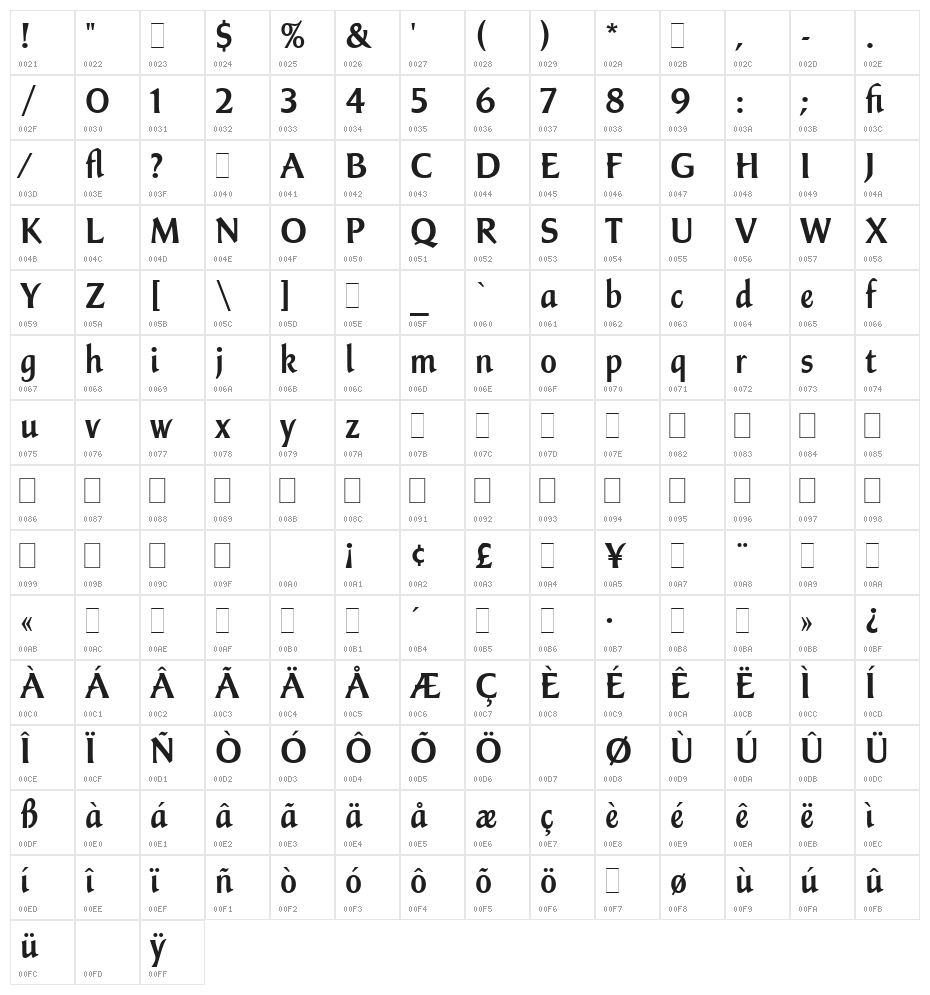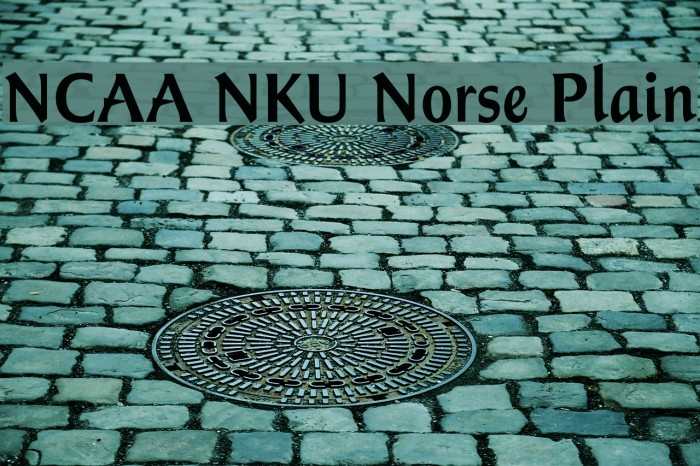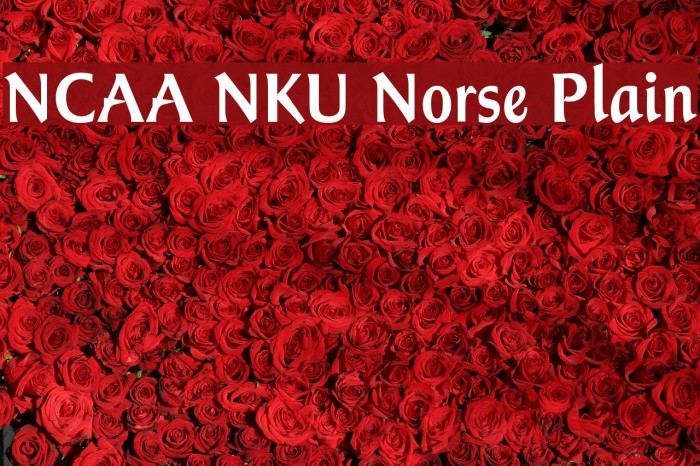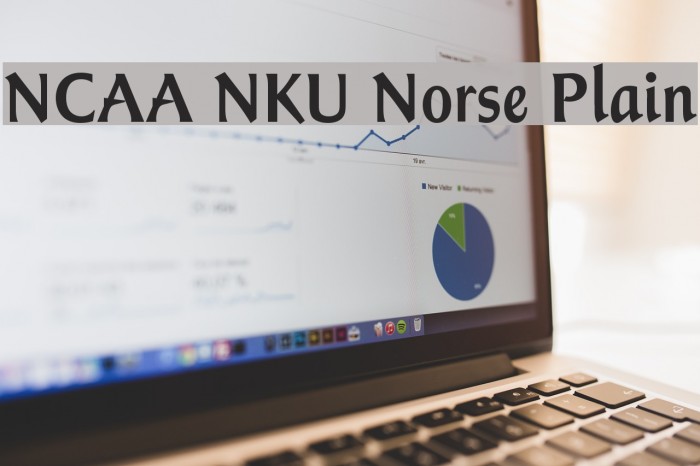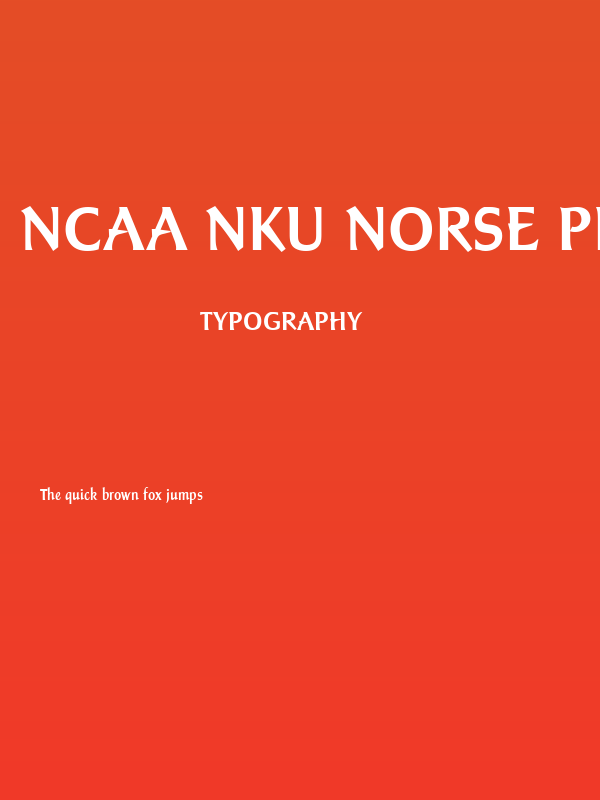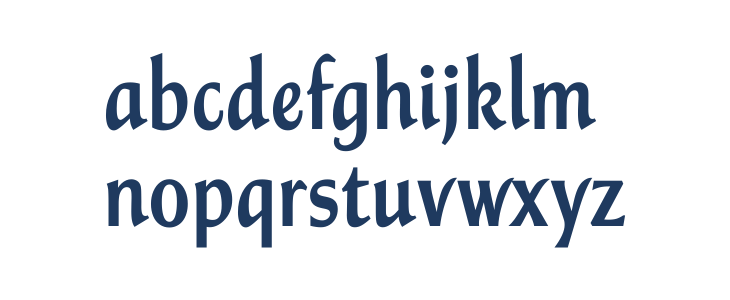
NCAA NKU Norse Plain Font
NCAA NKU Norse Plain Description
This font features a bold and distinctive serif style with sharp, angular serifs that give it a strong and authoritative presence. The uppercase letters are particularly striking, with a slightly condensed form that enhances their impact. The lowercase letters maintain a consistent style, offering a harmonious balance between readability and style. The numerals are clear and robust, making them suitable for various applications. Special characters are well-defined, adding to the font's versatility. Overall, this font exudes a classic yet modern feel, making it suitable for a wide range of design projects.
| Proposed Projects | Ideal for branding, headlines, posters, and any project requiring a strong, authoritative typeface. |